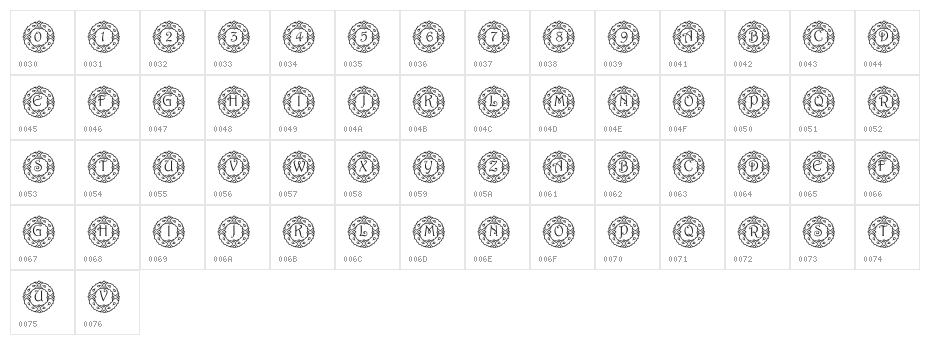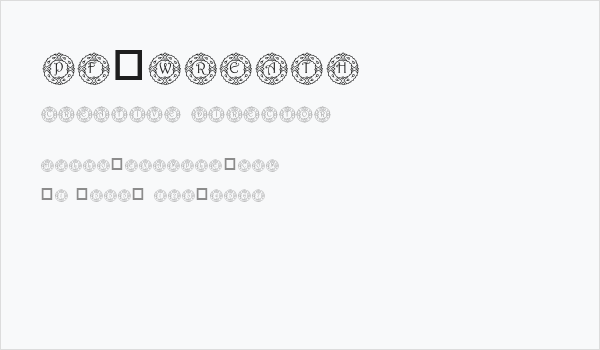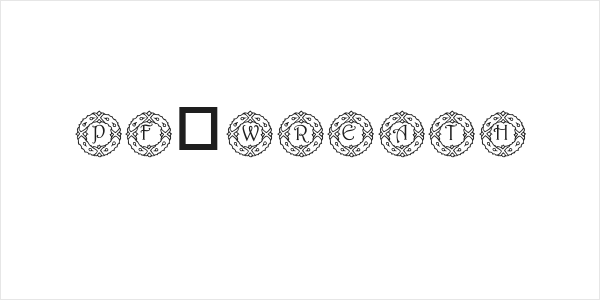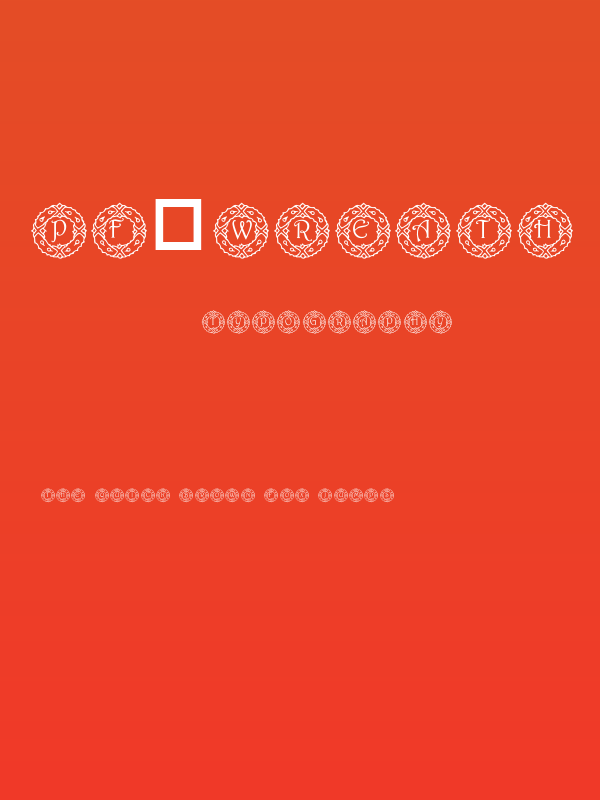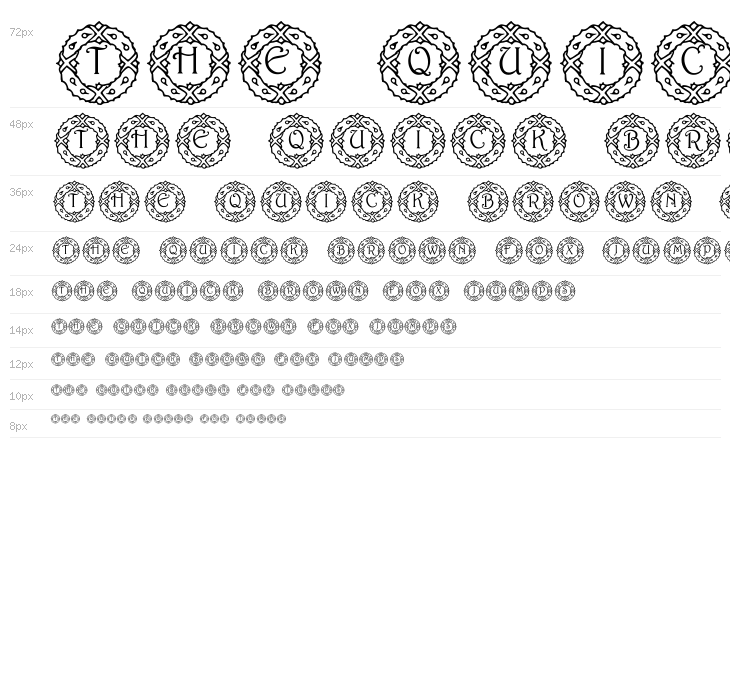
pf_wreath Font
pf_wreath Description
This decorative font features characters encased in intricate wreath-like designs, giving each letter and number a unique, ornamental appearance. The characters themselves are serif-style, with elegant strokes that complement the detailed borders. The overall design is reminiscent of vintage or classical motifs, making it suitable for projects that require a touch of elegance and sophistication. The font maintains a consistent style across uppercase, lowercase, and numerical characters, ensuring uniformity in design. Special characters are also included, each presented with the same decorative flair.
| Use Case | Logos, Invitations, Decorative headings |
| Proposed Projects | Ideal for wedding invitations, luxury branding, decorative posters, and vintage-themed projects. |